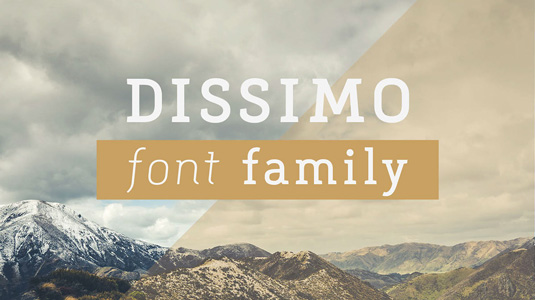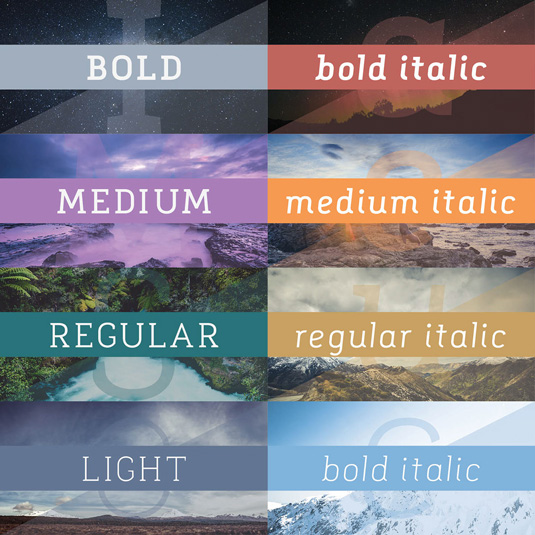
Font of the day: Dissimo
Every day we showcase the best fonts on the web. Today it's Dissimo by Matt Vergotis.
Dissimo by Matt Vergotis
Kicking off our font of the day posts this week is slab typeface Dissimo. Designed and created by Matt Vergotis, Dissimo consists of eight weights: bold, medium, regular, light and an italic version for each.